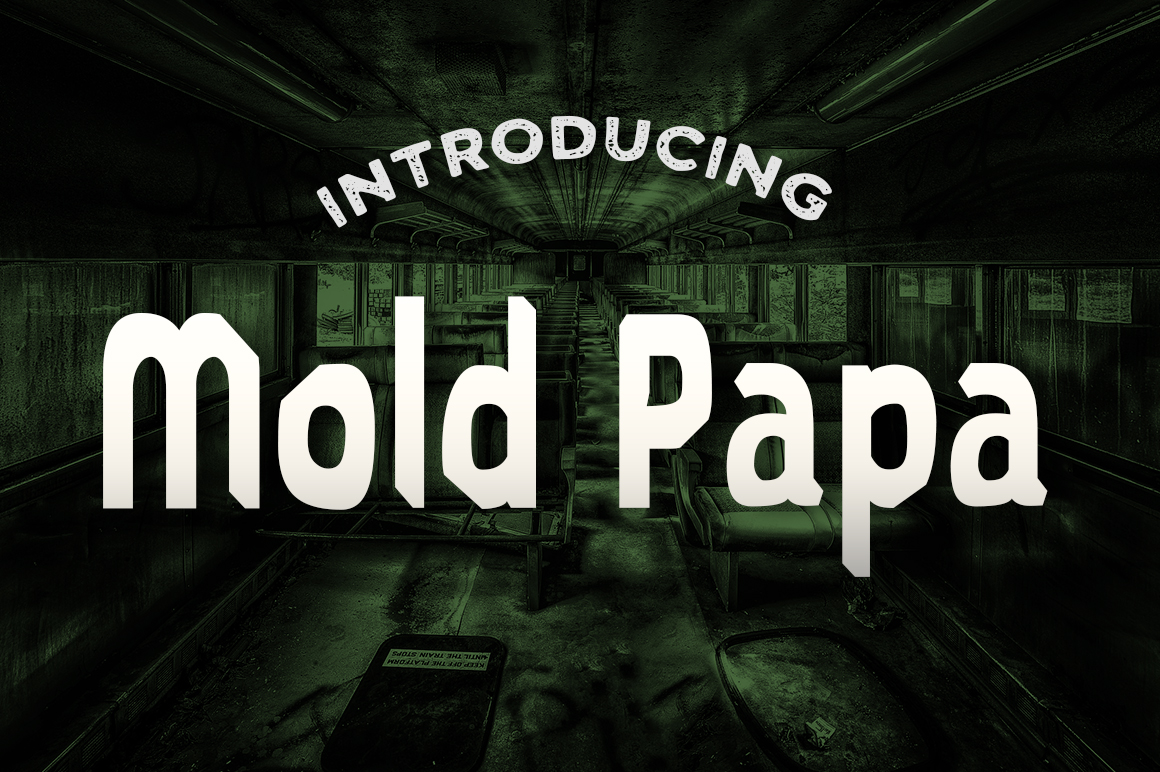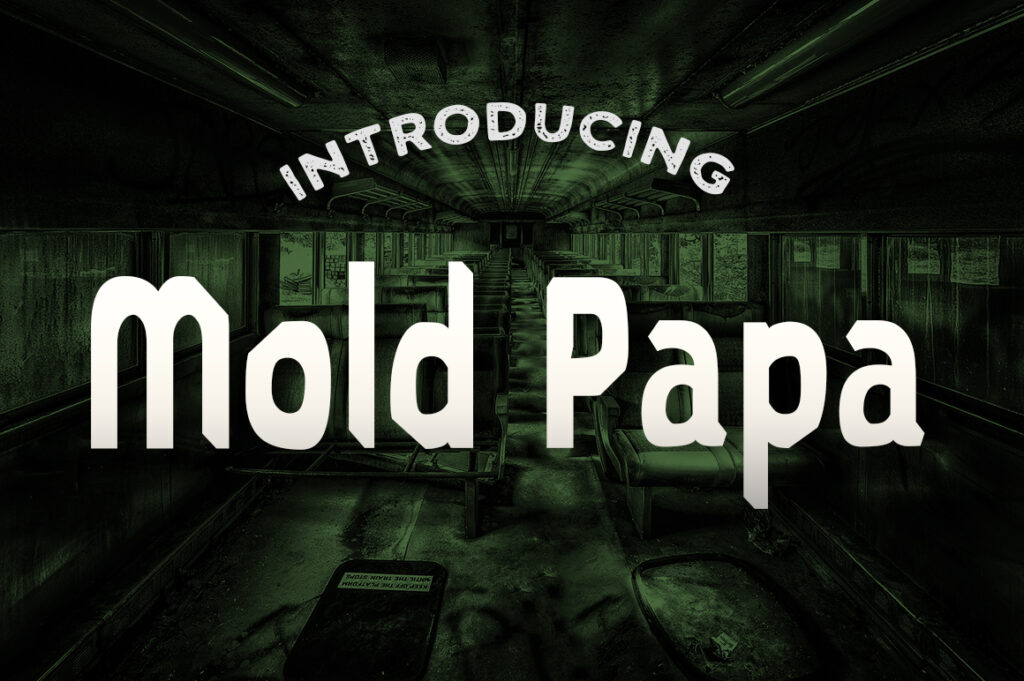
HomePersonal Use FreeMold Papa Personal Use Free Mold Papa FacebookXPinterestWhatsApp 1 of 1 About Mold Papa Font Mold Papa is a crusty, broken font with emotional issues. This grungy sans serif display font can give your designs a slightly worn look. This free sans serif font is offered by Typodermic. DOWNLOAD ON CREATIVE FABRICAThis font is sold and delivered by Creative Fabrica. Font Canyon may earn a commission if you buy through this link. People also explored Haleyda Font Smart Fresh Font Farmhouse Font Green Lemonade Font Thianesirion Font Mandala Font Seronita Font Simple Signature Font Gorgeous Font 484 0 TagsMold Papa Font Previous articleRinaNext articleKrait LEAVE A REPLY Cancel reply Comment: Please enter your comment! Name:* Please enter your name here Email:* You have entered an incorrect email address! Please enter your email address here Website: Save my name, email, and website in this browser for the next time I comment. Personal Use Free Cretino Personal Use Free Read more about this font Brandon Bromley Personal Use Free Read more about this font Beloved Script Personal Use Free Read more about this font Valentine Chips Personal Use Free Read more about this font BLOG How to Cut Any Font on Cricut: Convert a Font to SVG (Free) Turn any font into a clean SVG so it cuts crisp on Cricut - a quick 3-step workflow using a free font-to-SVG tool. Top 10 Handwritten Fonts That Elevate Your Designs Where to Buy American Fonts Online in 2024 Transform Your Website: Elevate Your Typography with 7 Best Web Font Generators